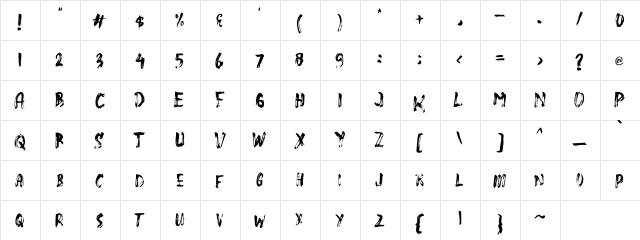
SlasZ Brush Brush
| Style | Brush |
| Foundry | Nur Solikh / Astageni Type, Subdivision of Flamde Studio |
| Designer | Nur Solikh |
Design Context for SlasZ Brush Typeface
SlasZ Brush flows with the natural rhythm of handwritten lettering, making it ideal for designs that call for warmth and personal expression.
Font Pairing: Combine SlasZ Brush with a simple geometric sans for maximum contrast — the tension between flowing curves and clean structure is a classic typographic pairing.
Pro Tip: Use SlasZ Brush for short runs of text — names, titles, or taglines. Extended body copy in script faces tires the eye quickly.